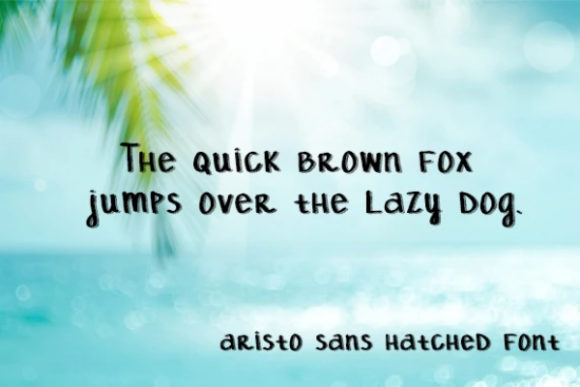
Introducing Aristo Hatched: The Modern Sans Serif Font for Perfect Design Balance
In the world of typography, finding the perfect font that complements your design can be a daunting task. However, with Aristo Hatched, your search might just be over. Aristo Hatched is a modern sans serif font that has been meticulously crafted to meet the diverse needs of designers and crafters alike. Its perfectly balanced mix of smooth and sharp elements makes it an ideal choice for a wide range of design projects.
What Makes Aristo Hatched Stand Out?
Aristo Hatched’s uniqueness lies in its distinctive hatched texture, which sets it apart from traditional sans serif fonts. This modern twist not only adds a layer of sophistication to your designs but also injects a sense of dynamism and energy. The hatched effect gives the font a unique texture that can add depth and interest to any design, making it perfect for projects that require a bit of flair.
Perfect Balance of Smooth and Sharp
One of the key features of Aristo Hatched is its perfectly balanced mix of smooth and sharp elements. This balance ensures that the font is versatile and can be used in various design contexts, from digital media to print. The smooth aspects of the font provide a sleek and modern look, while the sharp elements add a touch of edginess and precision. This balance makes Aristo Hatched a font that can seamlessly integrate into any design, enhancing its overall aesthetic appeal.
Versatility for Designers and Crafters
Aristo Hatched is designed to be versatile, making it an excellent choice for both designers and crafters. Whether you’re working on a branding project, creating packaging, or designing a website, this font can adapt to your needs. Its clear and legible design ensures that your message is communicated effectively, while its stylish appearance adds an extra layer of professionalism to your work.
Applications of Aristo Hatched
The applications of Aristo Hatched are vast and varied. Here are a few examples of how this font can be used:
• Branding: Use Aristo Hatched to create a modern and memorable brand identity that stands out from the competition.
• Web Design: Enhance your website’s typography with Aristo Hatched, making it more engaging and user-friendly.
• Packaging: Add a touch of sophistication to your product packaging with this stylish and contemporary font.
• Marketing Materials: From brochures to flyers, Aristo Hatched can elevate the look of your marketing materials, making them more appealing to your audience.
Why Choose Aristo Hatched?
Choosing Aristo Hatched for your design projects comes with several benefits:
• Unique Design: The hatched texture of Aristo Hatched gives it a unique look that can set your designs apart.
• Versatility: Its balanced mix of smooth and sharp elements makes it suitable for a wide range of design applications.
• Legibility: Despite its stylistic features, Aristo Hatched remains clear and legible, ensuring your message is always communicated effectively.
• Modern Appeal: The font’s modern sans serif design ensures that your projects look contemporary and relevant.
Font Name Aristo Hatched Font
Author carina2
Aristo Hatched is more than just a font; it’s a design solution that can elevate your projects to new heights. Its unique hatched texture, combined with its perfectly balanced mix of smooth and sharp elements, makes it a versatile and stylish choice for designers and crafters. Whether you’re looking to create a brand identity, design a website, or craft marketing materials, Aristo Hatched is an excellent choice that can complement any design need perfectly.